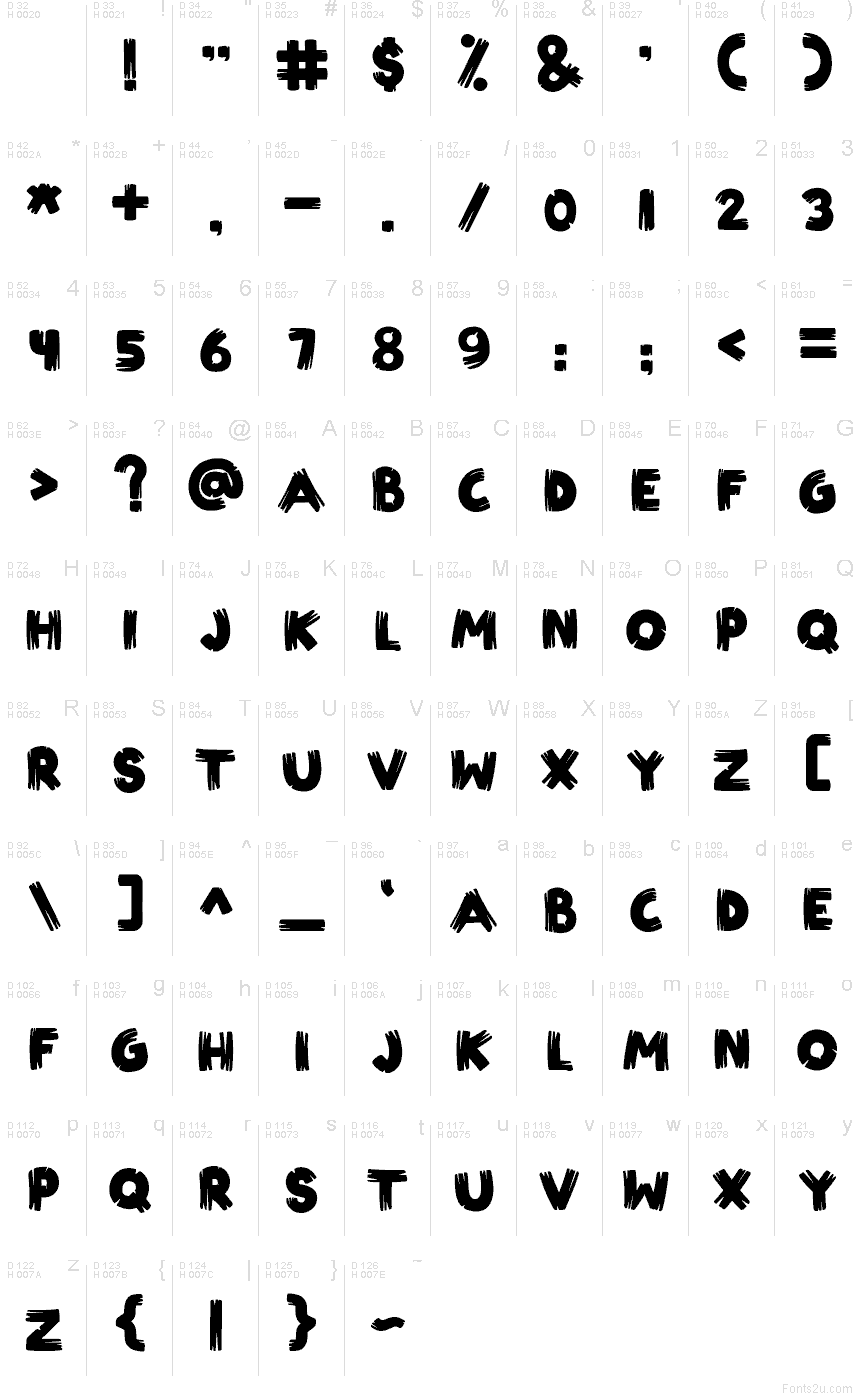
Natoor by Tokokoo is a free hand-painted caps display font with a raw, tribal poster feel. The letters look cut with a loaded brush, all thick strokes, ragged edges, and blunt shapes that make the round forms feel heavy and the pointed ones feel almost carved.
It fits music flyers, streetwear branding, festival posters, adventure packaging, and bold cover lines where a free font should feel physical rather than polished. Use it for short headlines, title cards, or monograms when you want the caps to hit with a rough, stamped rhythm and keep every word looking handmade.